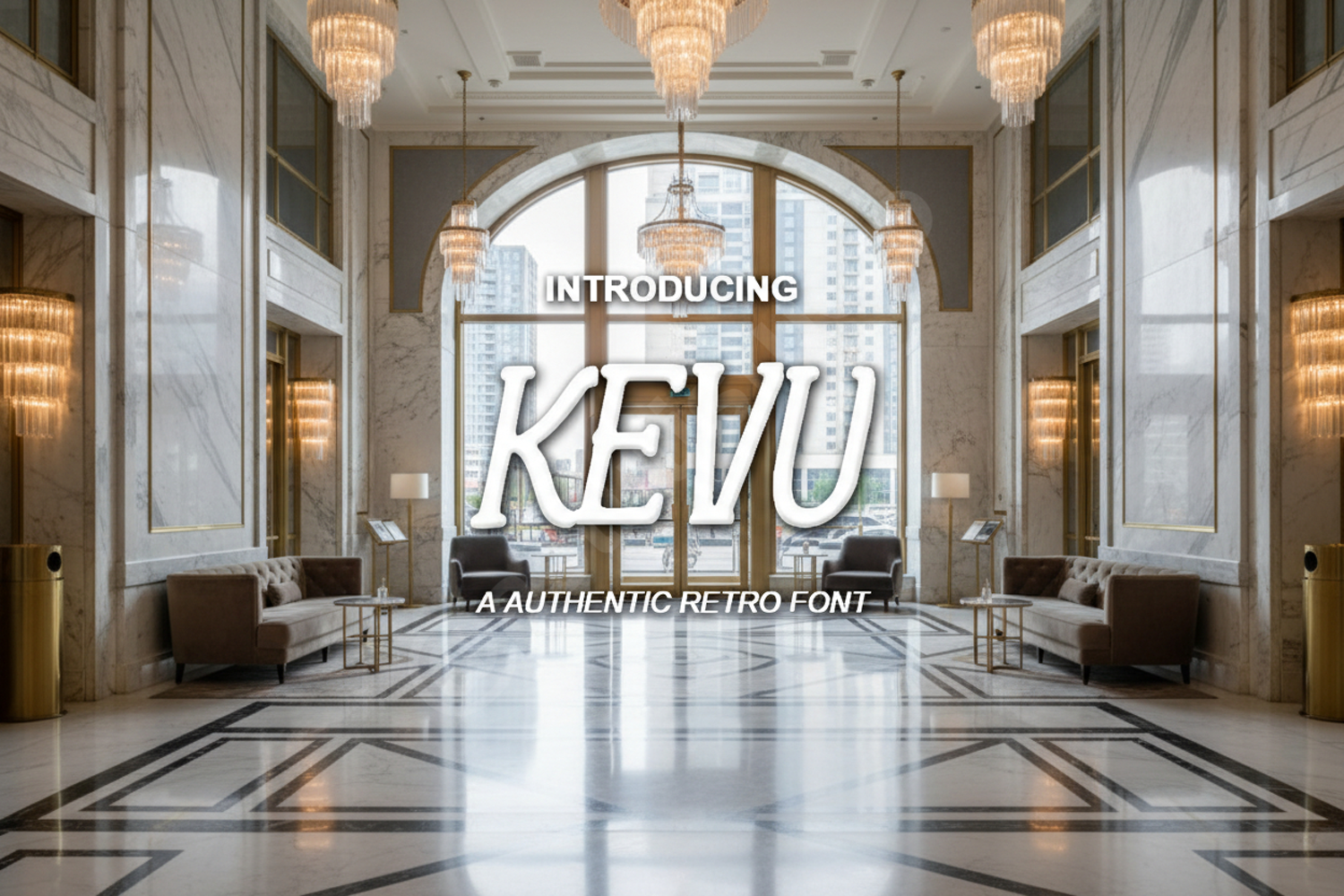
Kevu - Modern Minimalist Sans Serif Font
Kevu
Elevate your creative projects with Kevu, a premium sans-serif font designed for modern aesthetics and maximum versatility. With its clean geometric structure and balanced proportions, Kevu offers a sophisticated look that fits perfectly into contemporary design trends. Whether you are building a brand from scratch or refreshing an existing identity, this font provides the professional edge required for high-end visual communication.
- Professional Branding and Identity: Create memorable logos and cohesive brand systems.
- Editorial Design: Perfect for sleek magazine headers and readable body text.
- Digital Marketing: High-impact social media graphics and web banners.
- Luxury Packaging: Add a touch of elegance to product labels and boxes.
- Minimalist Stationery: Clean and modern designs for business cards and invitations.